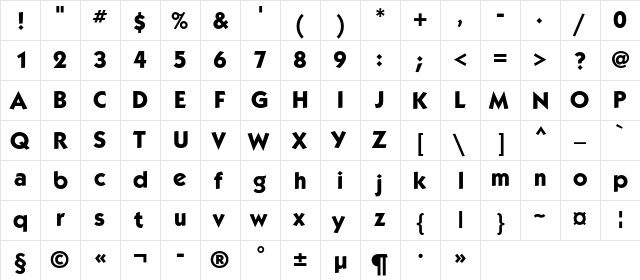
KabelC Medium Bold
Design Context for KabelC Medium Typeface
KabelC Medium is a composed and adaptable typeface that performs quietly and consistently across a wide range of design contexts. The heavy weight commands attention and anchors typographic hierarchies.
Pro Tip: Use KabelC Medium in both headline and body roles to test its range before committing to a single application.